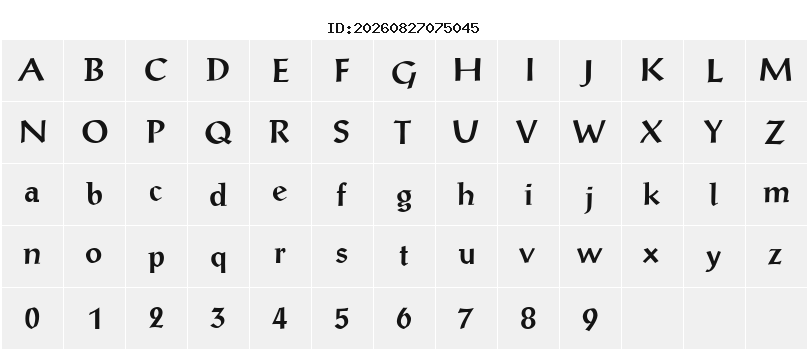
448-CAI978 Preview
About 448-CAI978.ttf
448-CAI978.ttf is a modern, elegant sans-serif font designed for ultimate readability and visual harmony. Perfect for branding, headlines, web design, and print materials.